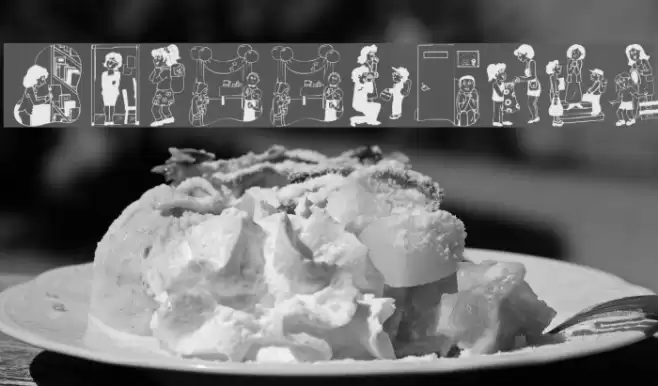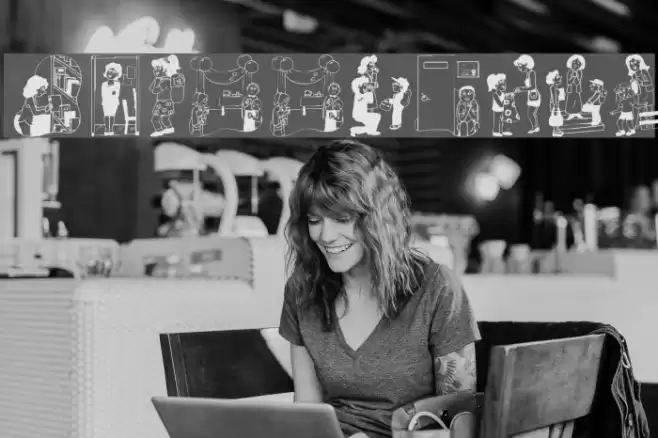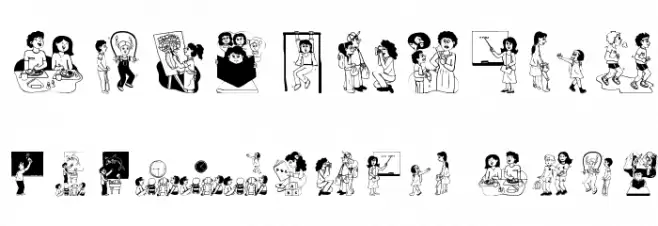
SchoolTime Font
SchoolTime Description
A playful and illustrative font where each character is formed by groups of children and teachers engaged in various school activities, such as reading, playing, and learning. The glyphs are highly detailed, featuring cartoon-style line art with a friendly and whimsical appearance.
A school-themed, illustrative display font made of cartoon children and teachers from Uncategorized fonts.
- Proposed Projects: Children's books, educational posters, school event flyers, playful branding, classroom decor.
- Overall Style: Decorative, Playful, Whimsical
- Use Case: Headlines, Posters, Logos, Educational Materials